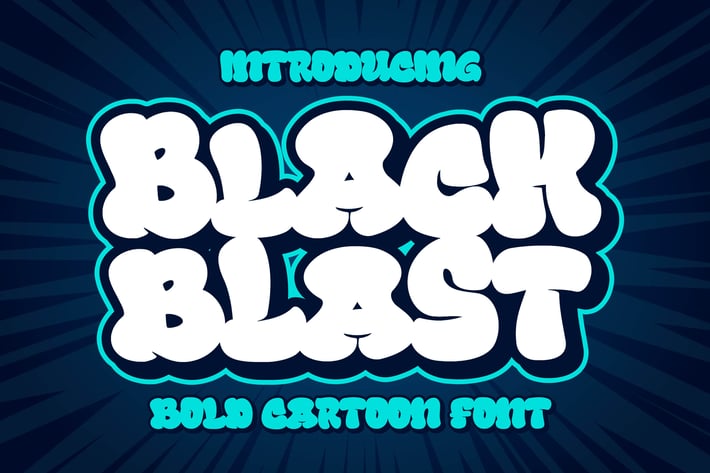
Black Blast a Bold Comic Font
Introducing of our new product the name is Black Blast a Bold Comic Font, Black Blast inspired by Playful style with a fun theme very good for kids and playful theme design.